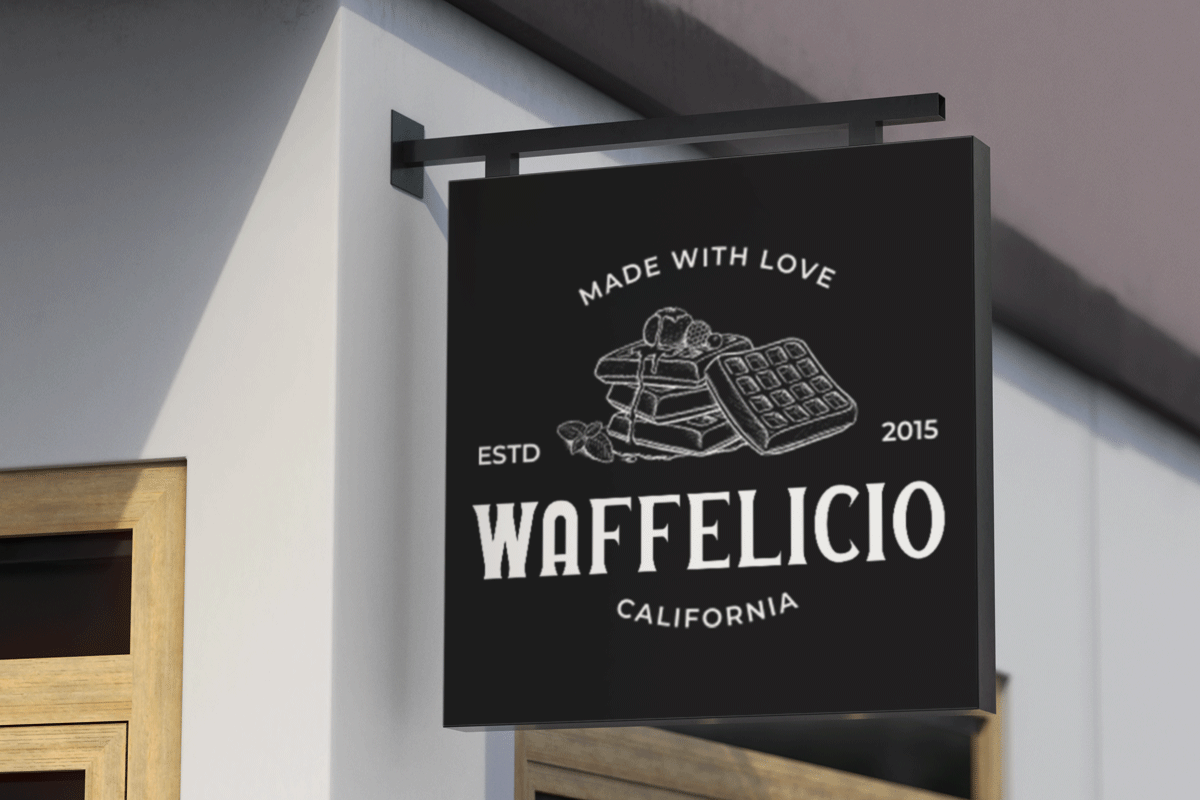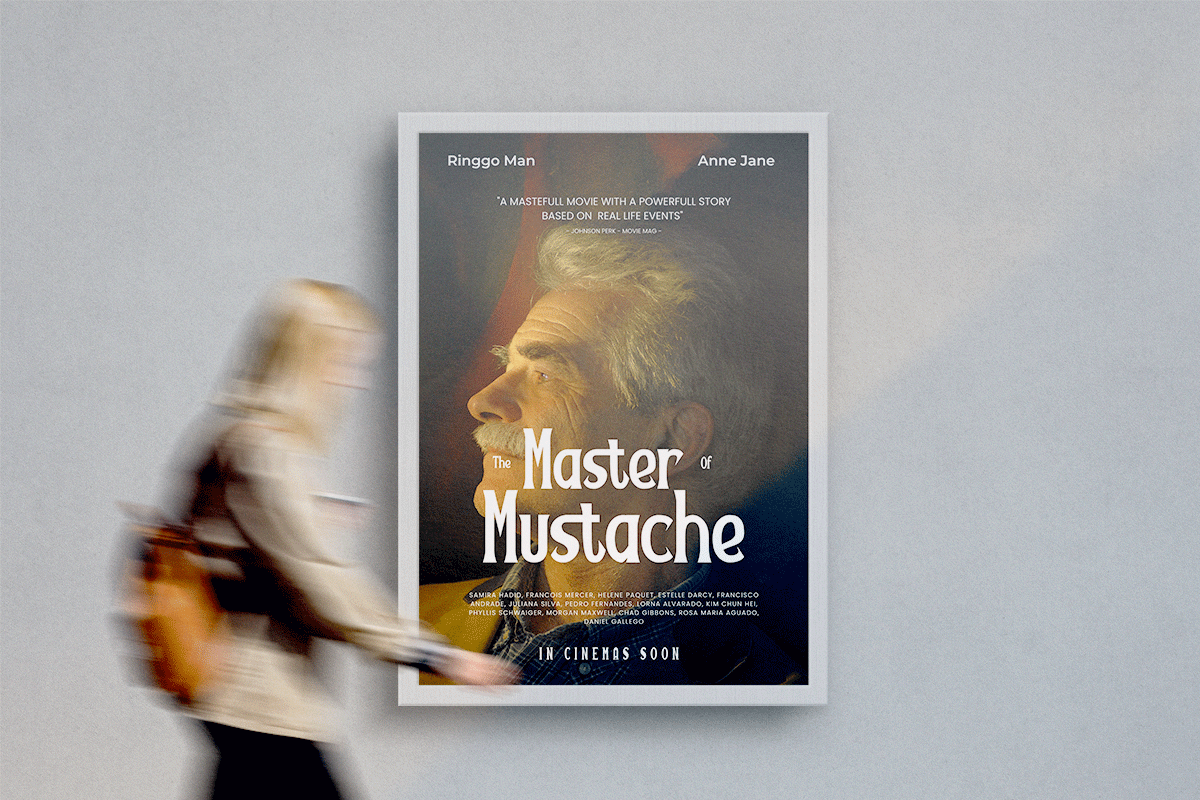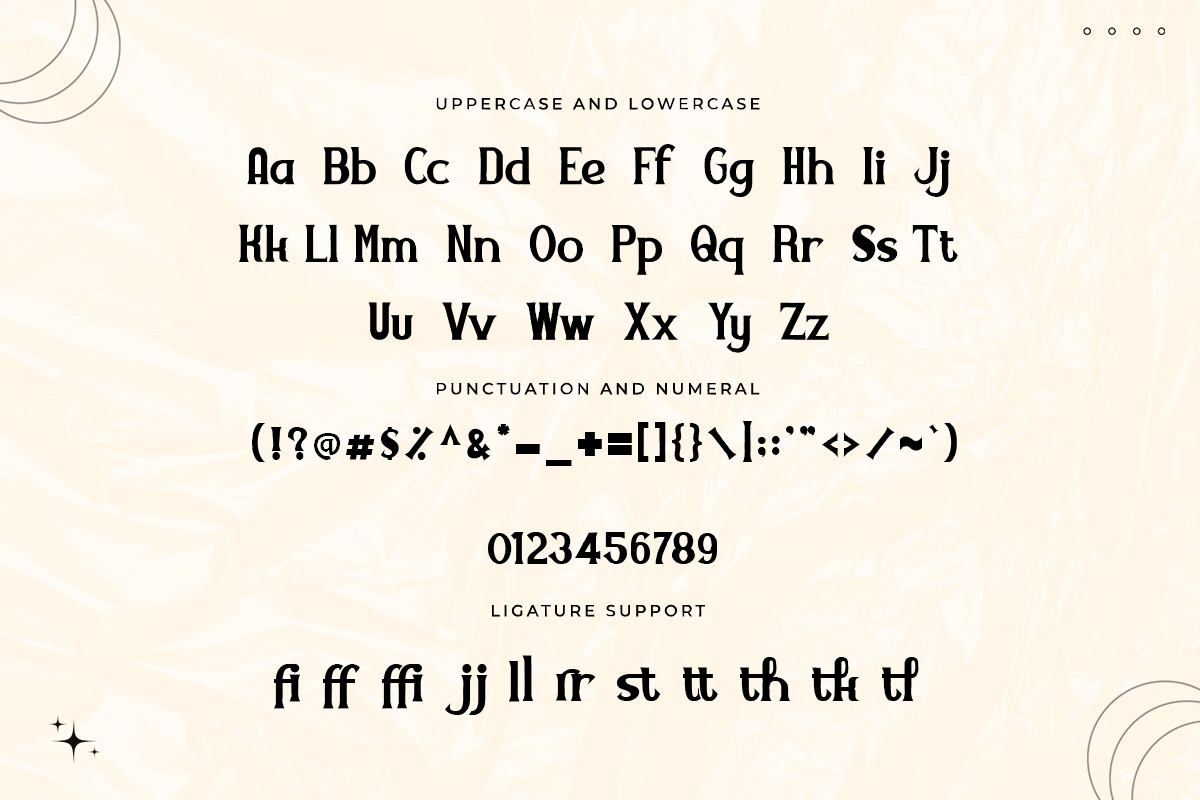
Basilisk Elegant Serif Font Basilisk font is a modern style font that has sharp pointed corners at the end of each letter. When you look carefully, you can also see hidden fang snake designs on some of the glyphs. Basilisk font is a legible font that can be seen and understood from a distance. However, this font is not suitable for writing long sentences, or blog content, as well as reading books and magazines. Basilisk is the best font to use for signage, posters, or wall hangings for cafes, boutiques, or flower shops. The Basilisk font was created to accentuate the elegant, formal impression of every brand that chooses to use it. Our collection of serif fonts is compatible for use as Figma fonts, Canva fonts, Freepik Fonts, and Adobe Fonts. They also work as Windows Fonts, and Apple Fonts. For your social media needs, you can use and install fonts in our collection of serif fonts to use as Instagram Fonts, Facebook Fonts, and Twitter Fonts.